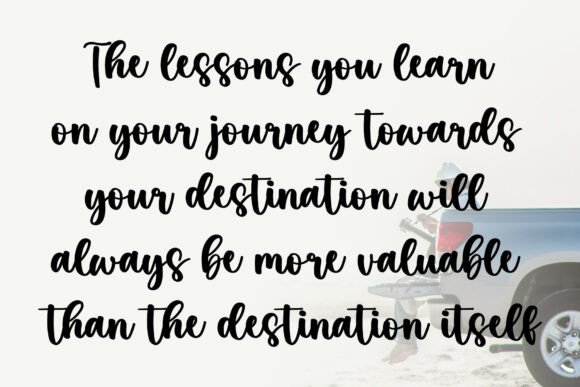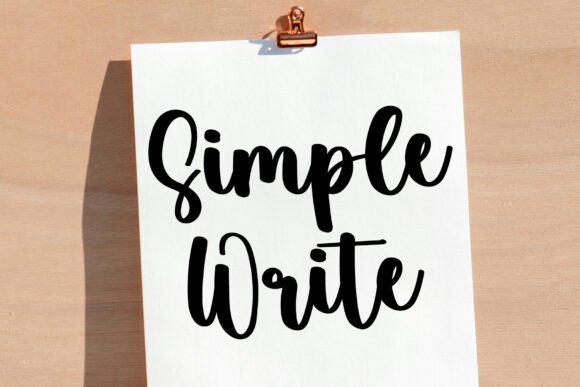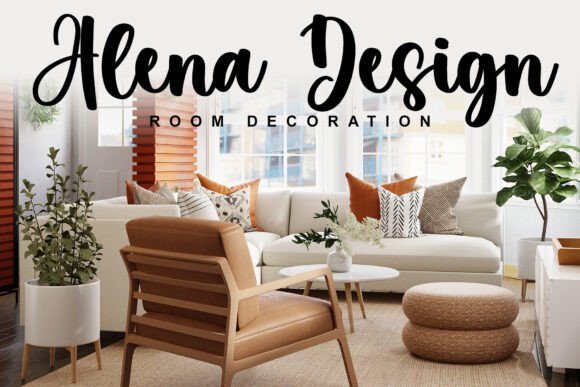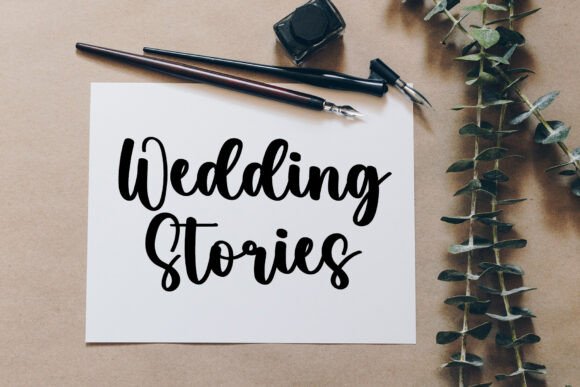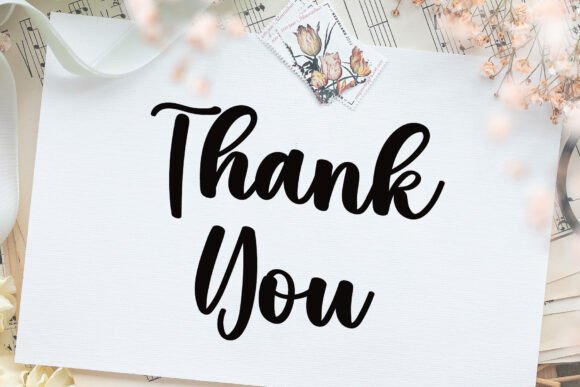
Introducing Christmas Signature Font: The Perfect Handwritten Font for Festive Celebrations
Are you looking for a font that captures the essence of festive celebrations? Do you want to add a touch of personality and whimsy to your designs? Look no further than Christmas Signature Font, a characterful and cute handwritten font that’s perfect for writing wedding invitations, cards, or any other design that requires a soft, characterful touch!
What Makes Christmas Signature Font So Special?
Christmas Signature Font is a unique and charming font that’s specifically designed to bring a touch of magic to your designs. With its playful and cursive style, this font is sure to delight your audience and make your designs stand out from the crowd. Whether you’re creating wedding invitations, holiday cards, or festive posters, Christmas Signature Font is the perfect choice.
Key Features of Christmas Signature Font
- Characterful and Cute: Christmas Signature Font is a handwritten font that’s full of personality and charm. Its unique and playful style is sure to add a touch of whimsy to your designs.
- PUA Encoded: This font is PUA encoded, which means you can easily access all the glyphs and ligatures. This makes it easy to use and customize the font to suit your needs.
- Soft and Elegant: Christmas Signature Font has a soft and elegant feel that’s perfect for creating beautiful and sophisticated designs.
- Versatile: This font is versatile and can be used for a wide range of design projects, from wedding invitations and holiday cards to posters and social media graphics.
Why Designers and Crafters Love Christmas Signature Font
Designers and crafters love Christmas Signature Font for its unique and charming style. Here are just a few reasons why:
- Easy to Use: Christmas Signature Font is easy to use and customize, even for those who are new to font design.
- High-Quality: This font is high-quality and designed to produce beautiful and clear results, even at small sizes.
- Unique Style: Christmas Signature Font has a unique and distinctive style that’s sure to make your designs stand out from the crowd.
- Time-Saving: With Christmas Signature Font, you can create beautiful and professional-looking designs in no time, saving you time and effort.
How to Use Christmas Signature Font in Your Designs
Using Christmas Signature Font in your designs is easy and straightforward. Here are just a few tips to get you started:
- Pair it with Other Fonts: Christmas Signature Font pairs well with other fonts, so feel free to experiment with different combinations to find the perfect look for your design.
- Use it for Headings and Titles: This font is perfect for headings and titles, where its unique and playful style can really shine.
- Add it to Your Design Toolkit: Christmas Signature Font is a versatile font that can be used for a wide range of design projects, so consider adding it to your design toolkit.
Christmas Signature Font is a unique and charming font that’s perfect for designers and crafters who want to add a touch of personality and whimsy to their designs. With its playful and cursive style, PUA encoding, and soft and elegant feel, this font is sure to delight your audience and make your designs stand out from the crowd. So why wait? Download Christmas Signature Font today and start creating beautiful and festive designs that will leave a lasting impression!